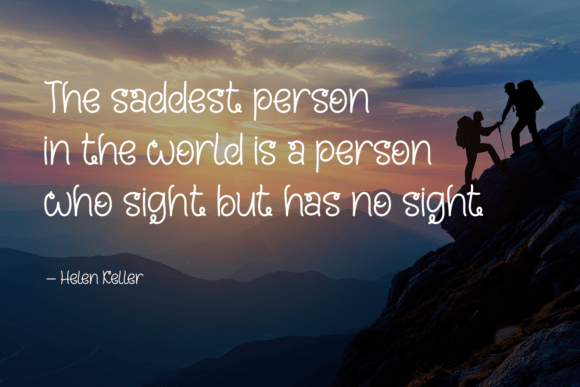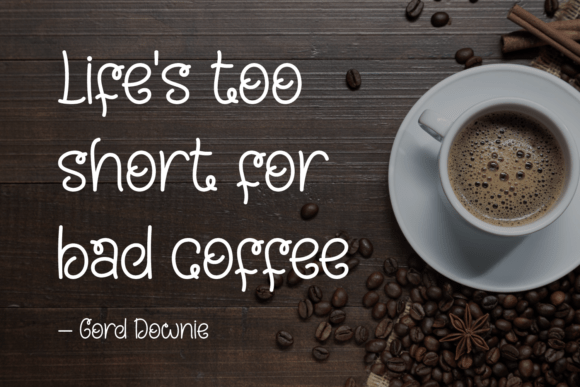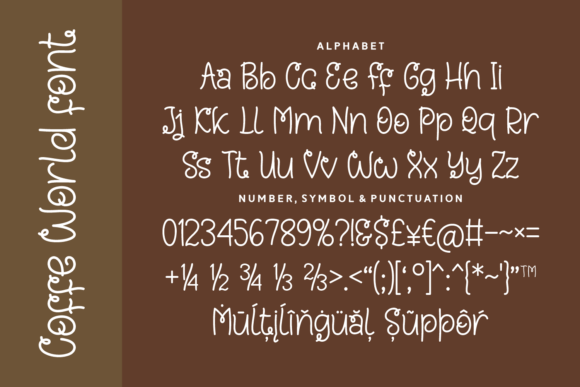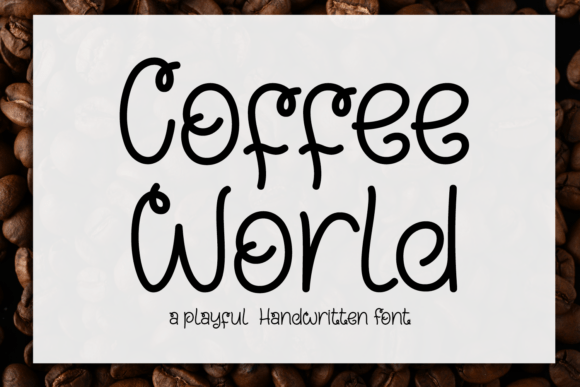
Coffee World Font: A Whimsical Typeface for Creative Projects
Are you looking for a font that can add a touch of playfulness and whimsy to your design projects? Look no further than the Coffee World font, a charming and handwritten typeface that’s perfect for creative endeavors. In this article, we’ll dive into the world of Coffee World, exploring its unique features, uses, and benefits for designers and crafters.
The Personality of Coffee World Font
Coffee World is a whimsical, handwritten typeface that bursts with playful personality. Its bouncy letterforms, loopy swashes, and casual charm make it an ideal choice for lighthearted projects that require a fun and carefree vibe. This font is designed to evoke a sense of warmth and welcoming, making it perfect for designs that need to convey a creative and friendly tone.
Key Features of Coffee World Font
- Handwritten style: Coffee World has a hand-crafted quality that gives it a personal and unique touch.
- Bouncy letterforms: The font’s letters are designed to be playful and energetic, with a bouncy feel that adds to its whimsy.
- Loopy swashes: The swashes in Coffee World are long and loopy, adding a touch of elegance and sophistication to the font.
- Casual charm: The font has a relaxed, casual feel that’s perfect for designs that need to convey a sense of friendliness and approachability.
Uses for Coffee World Font
Coffee World is a versatile font that can be used in a variety of creative projects, including:
- CafĂ© menus: The font’s playful and whimsical style makes it perfect for cafĂ© menus, adding a touch of fun and personality to your coffee shop’s branding.
- Product packaging: Coffee World is ideal for product packaging that needs to stand out on store shelves, adding a touch of whimsy and creativity to your brand’s packaging.
- Children’s books: The font’s playful and child-friendly style makes it perfect for children’s books, adding a touch of magic and wonder to your story.
- Anything that needs a touch of fun: Whether you’re designing a poster, flyer, or social media graphic, Coffee World is a great choice for adding a touch of playfulness and whimsy to your design.
Benefits of Using Coffee World Font
So why choose Coffee World font for your design projects? Here are just a few benefits of using this charming typeface:
- Conveys a warm and welcoming vibe: Coffee World is designed to evoke a sense of warmth and friendliness, making it perfect for designs that need to convey a welcoming tone.
- Adds a touch of creativity: The font’s playful and whimsical style adds a touch of creativity and imagination to your designs.
- Perfect for lighthearted projects: Coffee World is ideal for lighthearted projects that require a fun and carefree vibe.
- Hand-crafted quality: The font’s hand-crafted quality gives it a unique and personal touch that sets it apart from other typefaces.
In conclusion, Coffee World font is a charming and whimsical typeface that’s perfect for creative projects that require a touch of playfulness and fun. With its bouncy letterforms, loopy swashes, and casual charm, this font is ideal for cafĂ© menus, product packaging, children’s books, and anything that needs a touch of whimsy. Whether you’re a designer or crafter, Coffee World is a great choice for adding a touch of creativity and imagination to your designs.